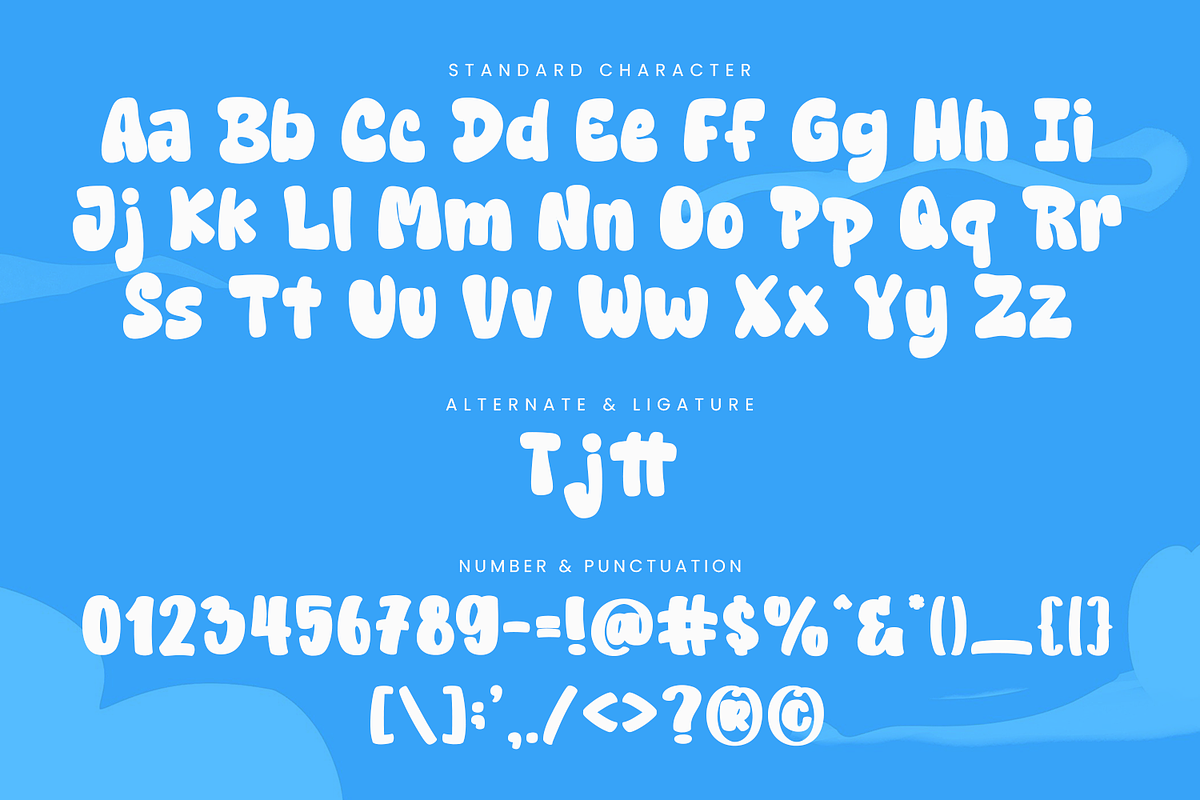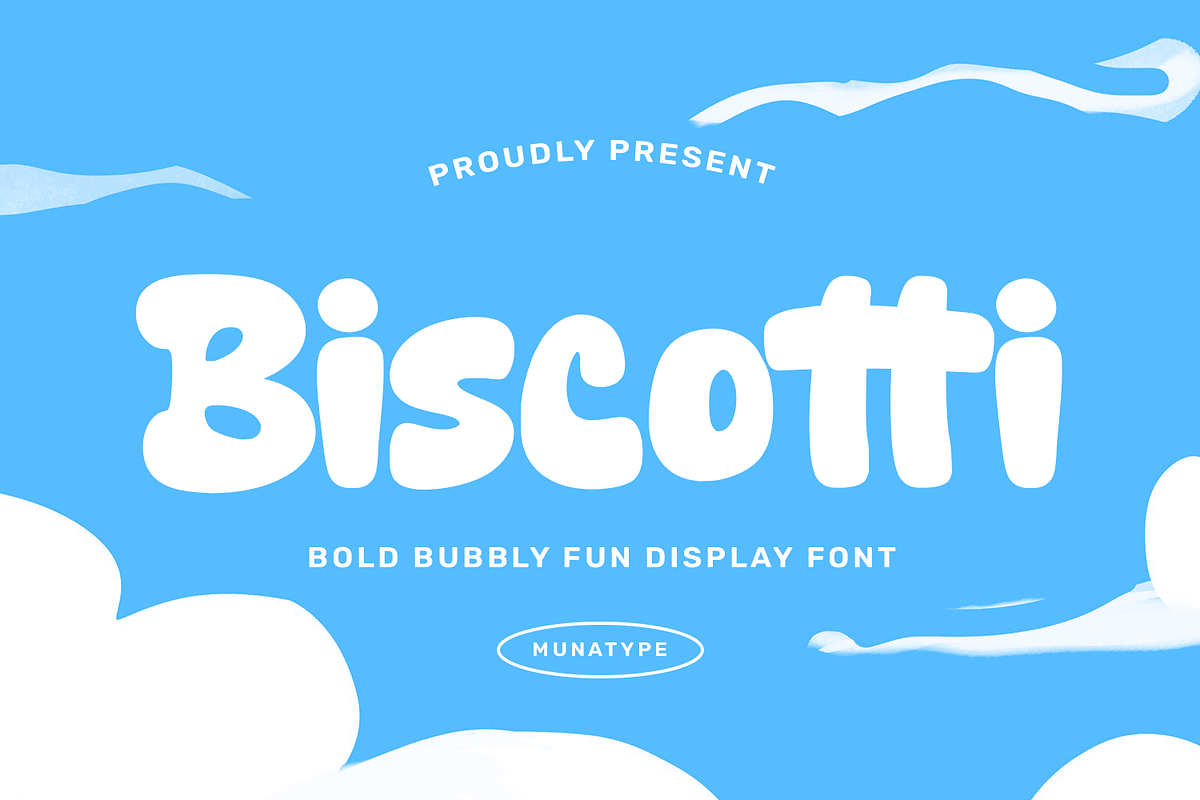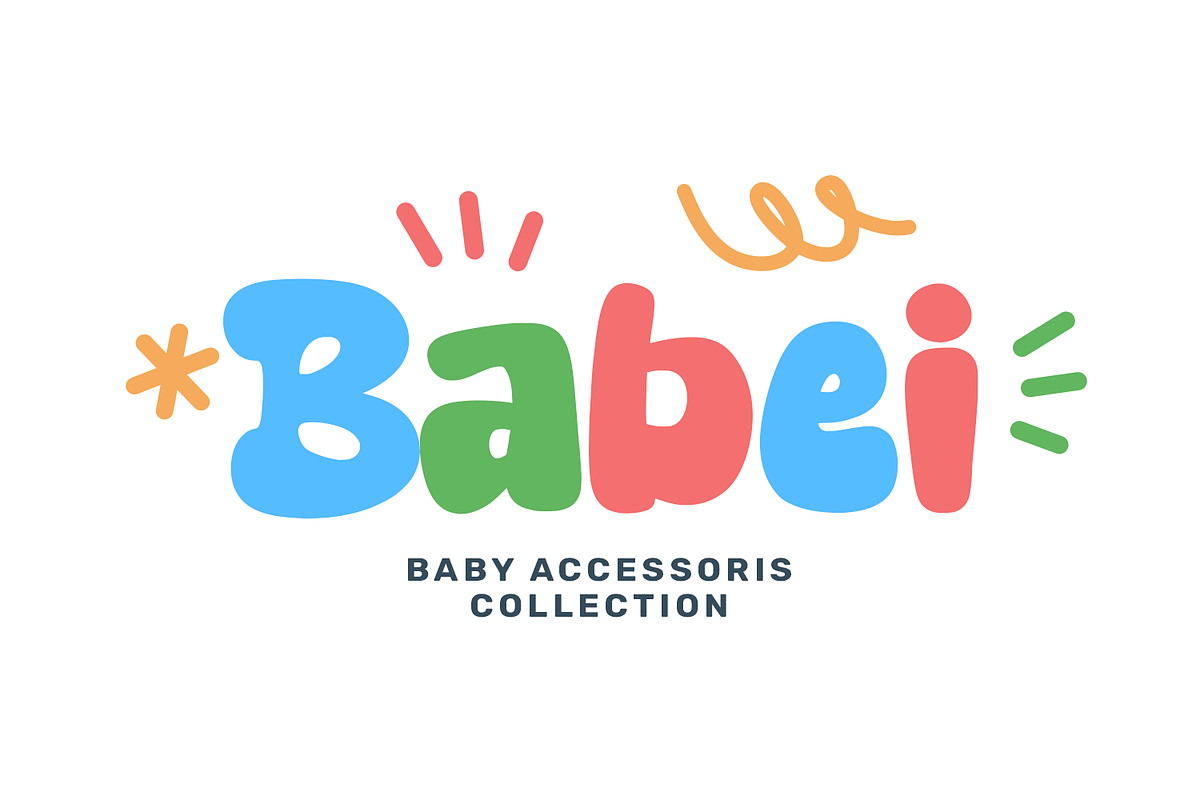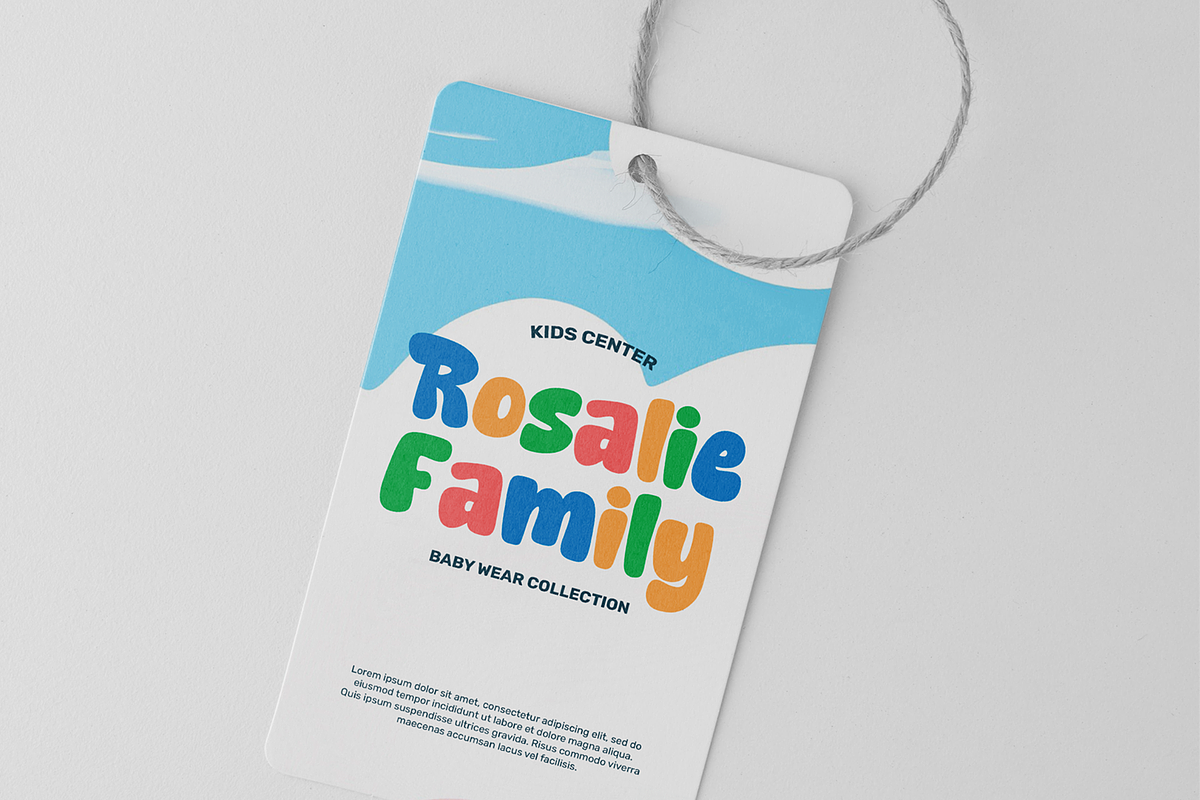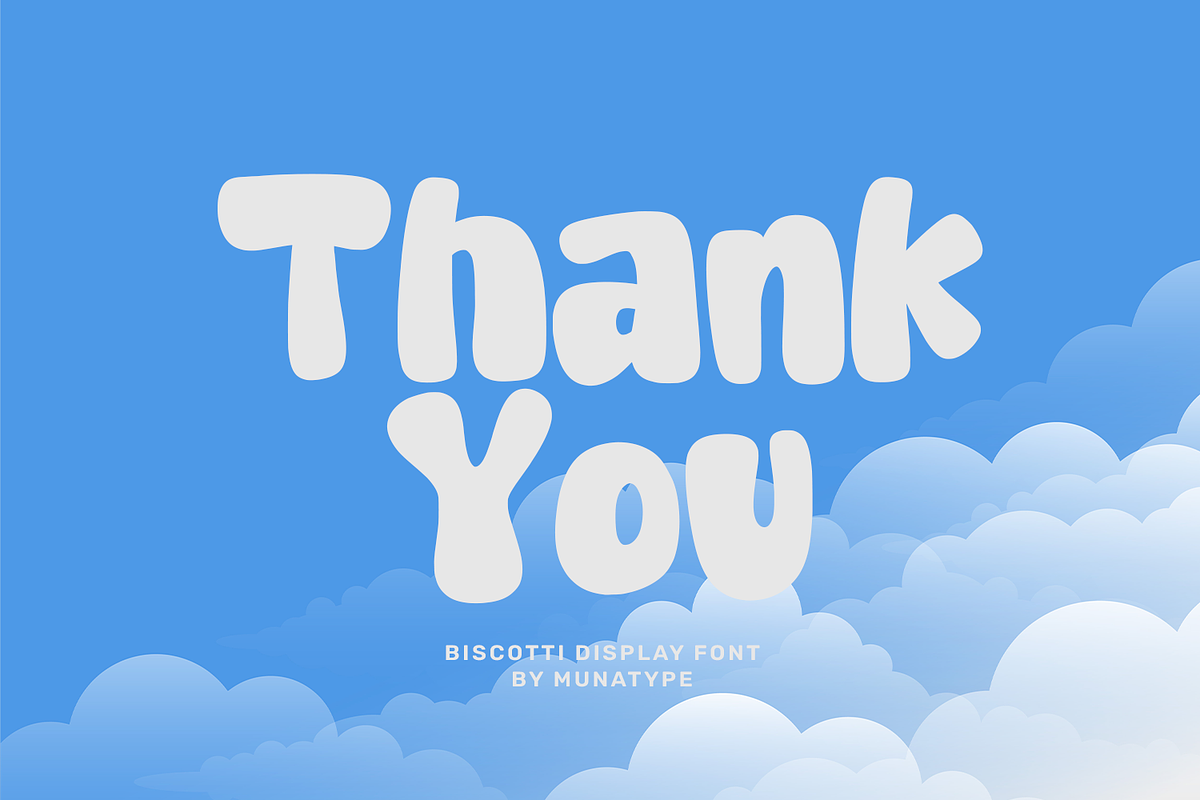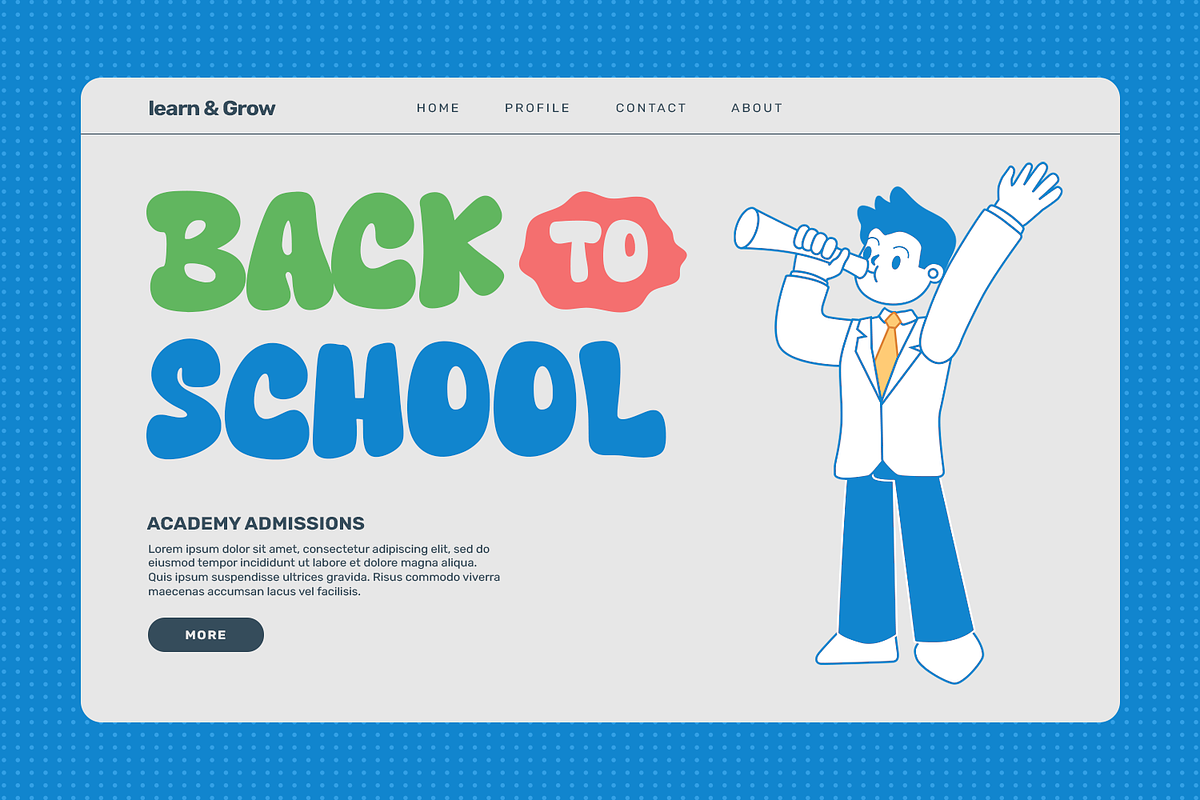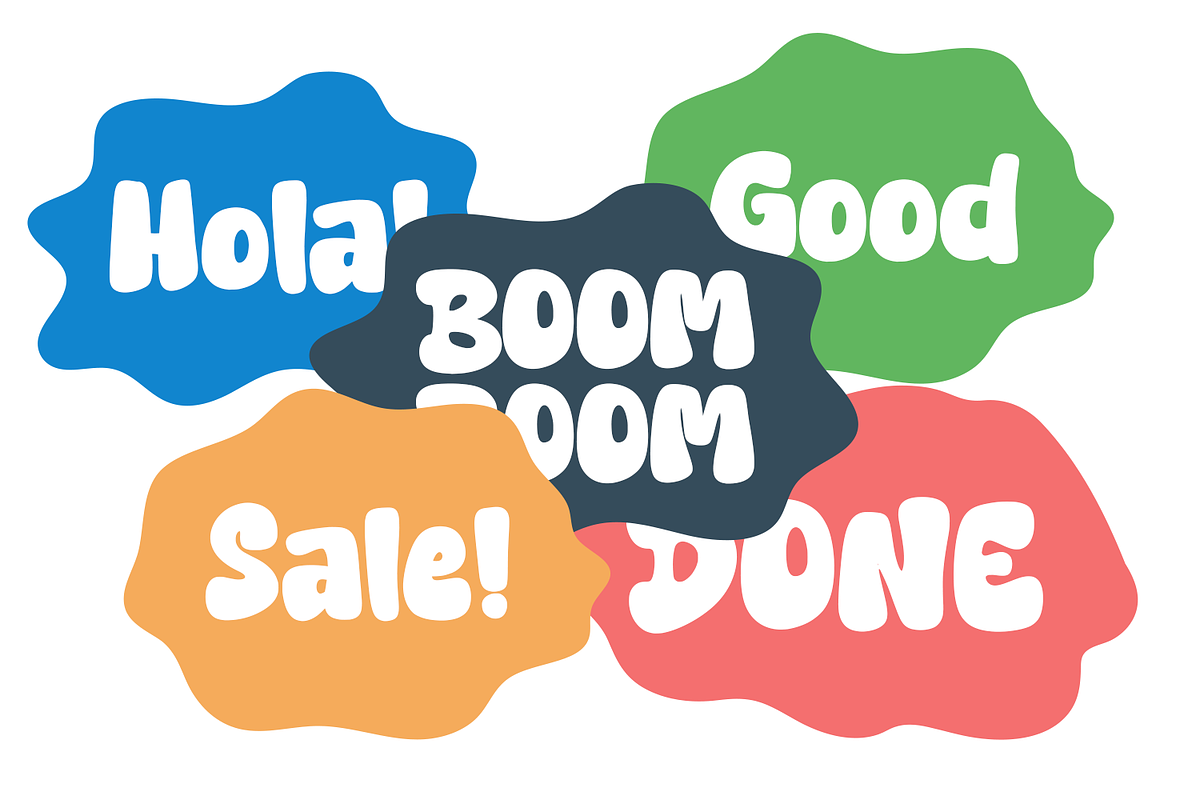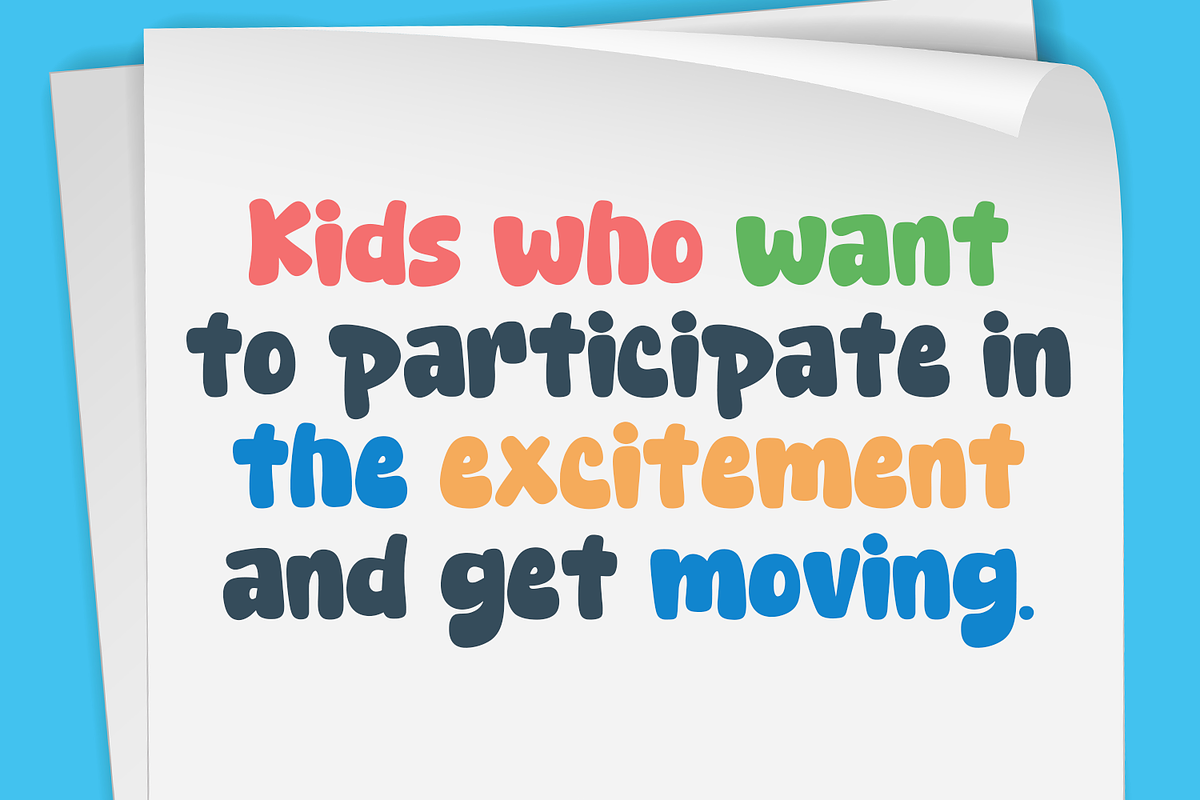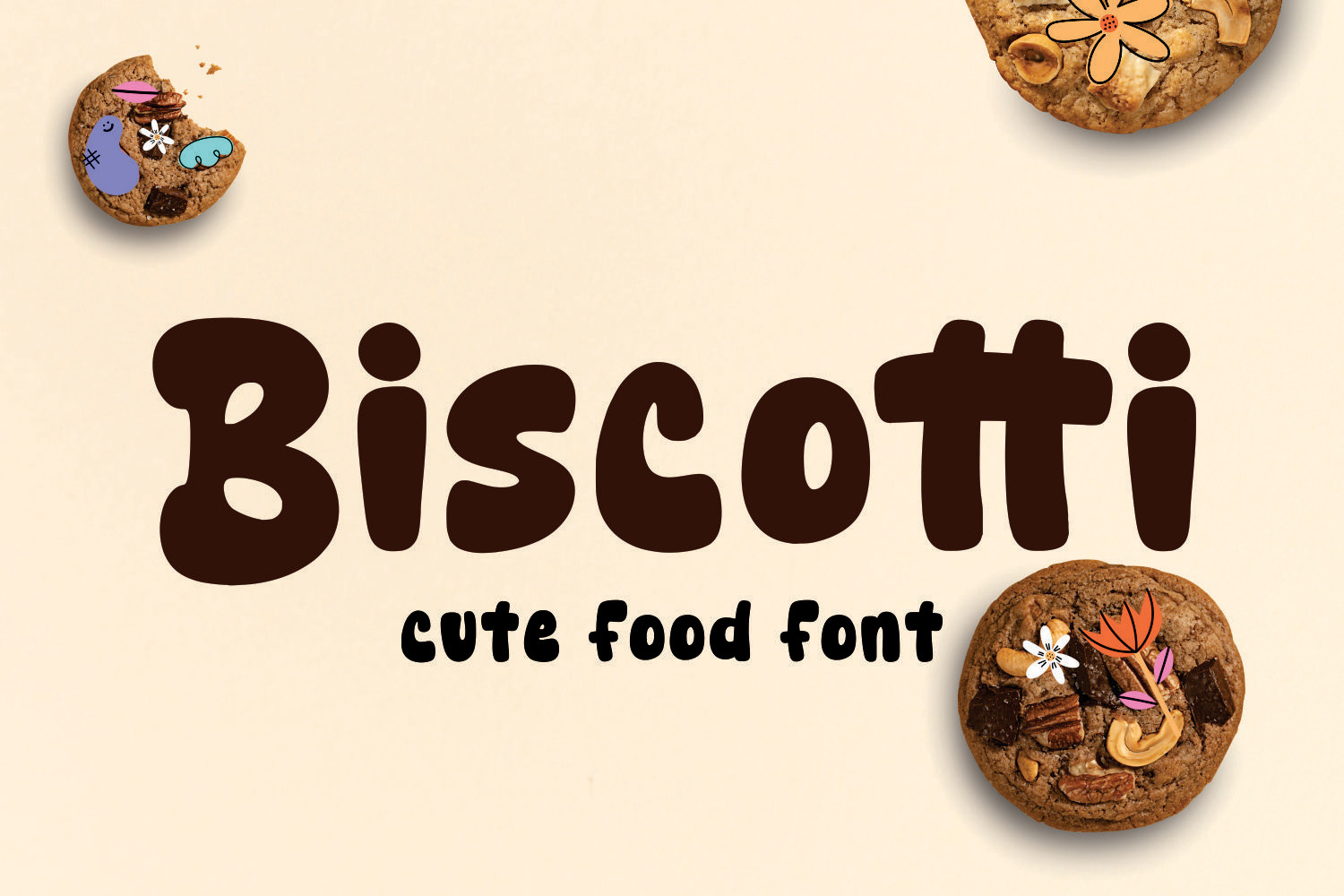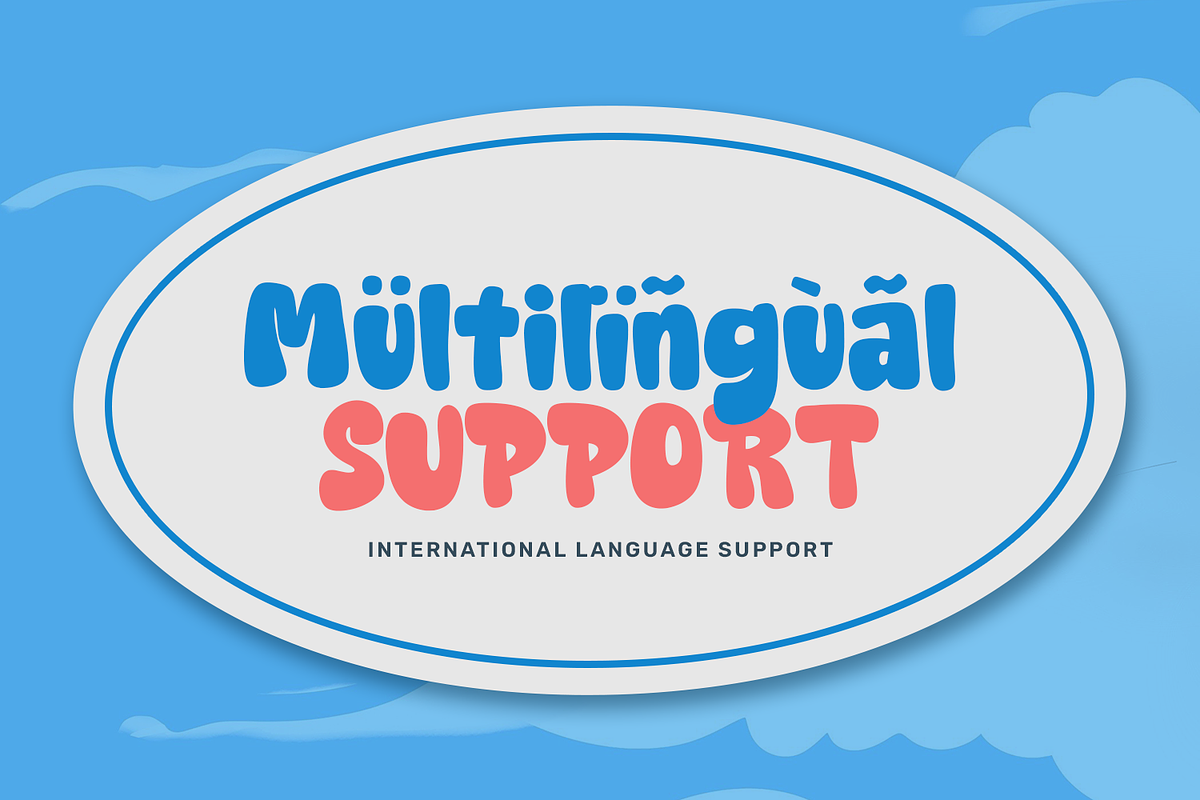
Biscotti - Food Brand Identity Font
Biscotti font is a sweet and charming handwritten font that blends cuteness with a touch of artisanal flair. Designed to spark joy and warmth, this font adds a friendly, handcrafted feel to any creative project. Its soft, rounded strokes and playful letterforms make it a perfect choice for designs that want to feel cozy, inviting, and full of character.
From food and beverage promotions to whimsical packaging designs, Biscotti sprinkles every layout with delightful personality. Its approachable style makes it especially suited for cute logos, dessert shop menus, drink labels, café branding, and bakery packaging. Whether featured on flyers, product tags, or digital banners, it instantly evokes a sense of freshness and charm.
Crafted for versatility, Biscotti works beautifully in both print and digital media. It’s a natural match for custom crafts, embroidery, and cutting machine projects like Cricut or Silhouette. Its friendly and attention-grabbing style enhances handmade labels, gift packaging, greeting cards, and seasonal campaigns with a cheerful twist.
In branding and advertising, Biscotti offers a memorable way to connect with audiences through warmth and playfulness. Perfect for promotional materials, product branding, and social media graphics, it ensures your message stands out with irresistible appeal. Bring your next creative project to life with the sweetness and charm of Biscotti font—your designs deserve it.
- Standard & Multilingual glyphs.
- Fonts include multilingual support for; Afrikaans, Danish, Dutch, French, German, Indonesian, Irish, Italian, Norwegian, Portuguese, Scottish, Spanish, Swedish, Swiss, etc.